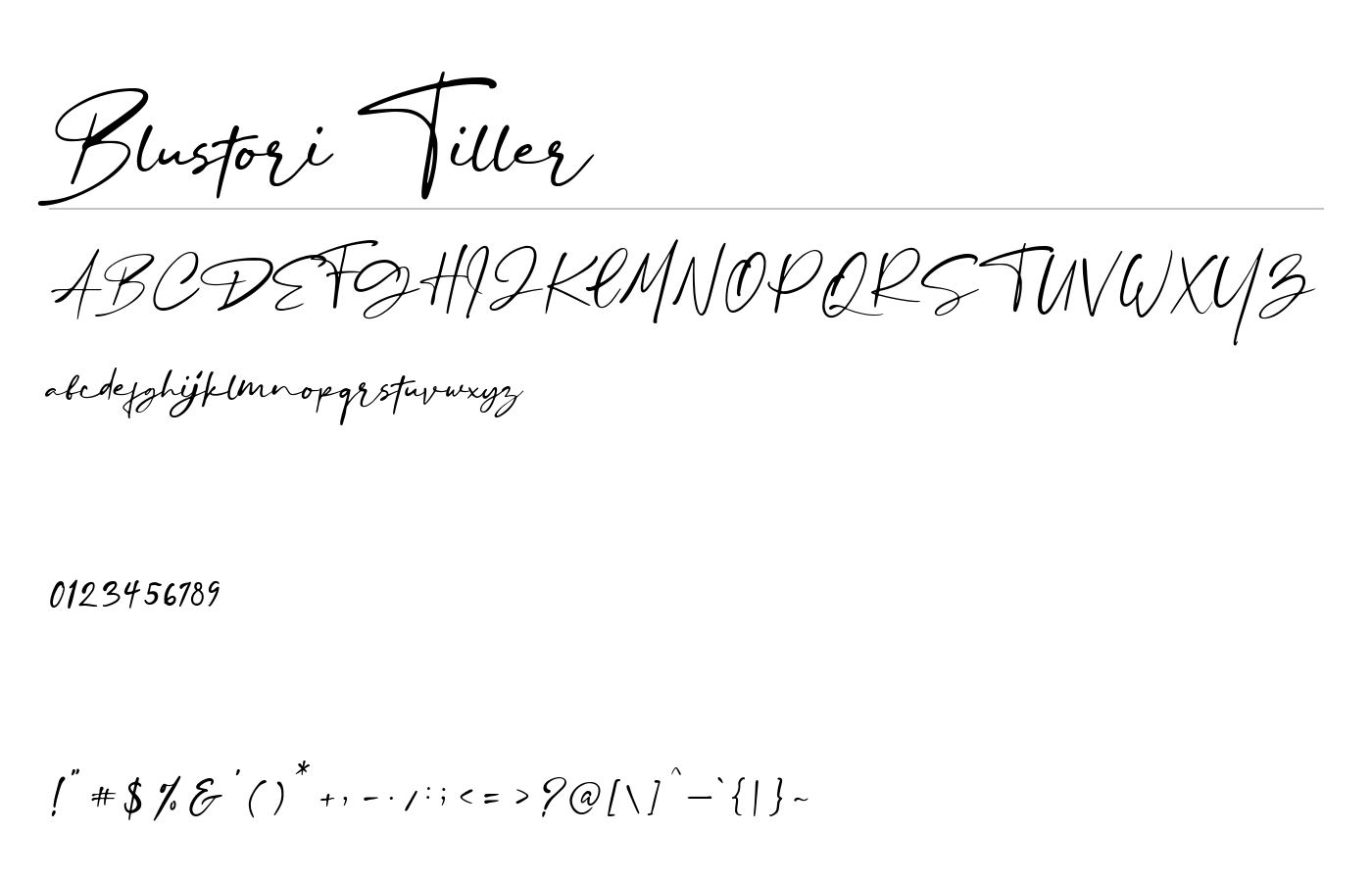
Blustori Tiller is a stylish handwritten script font that combines elegance with a casual, flowing charm. Its delicate strokes and slightly varied letterforms give it a natural, personal feel, making it perfect for creative branding, invitations, and fashionable editorial designs where a touch of sophistication and warmth is desired.
Blustori Tiller Font
About Blustori Tiller Font